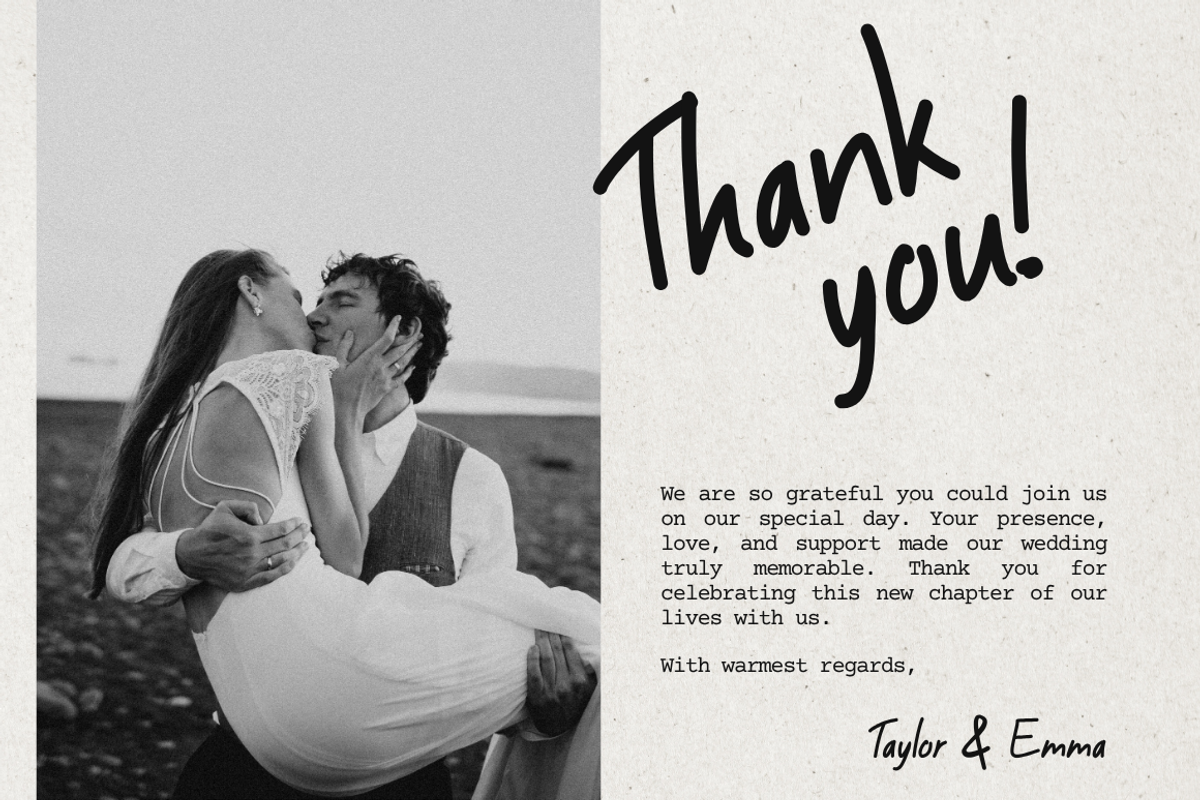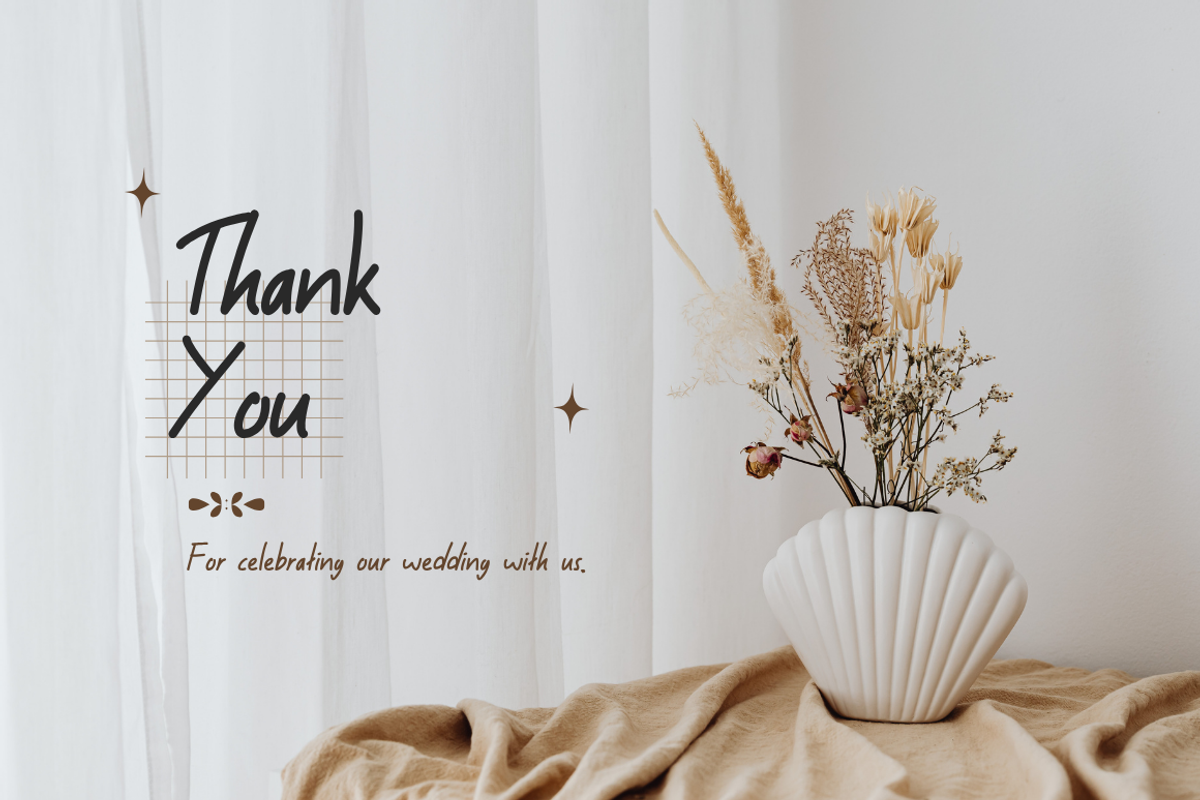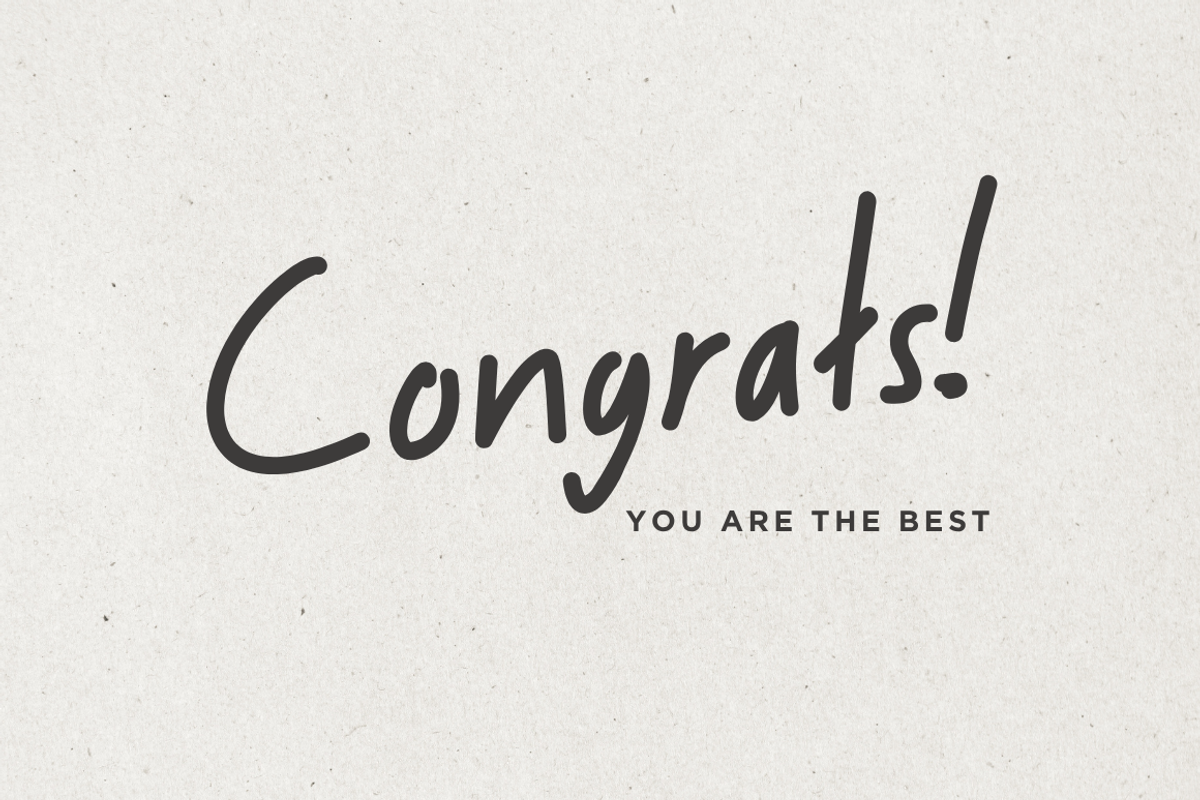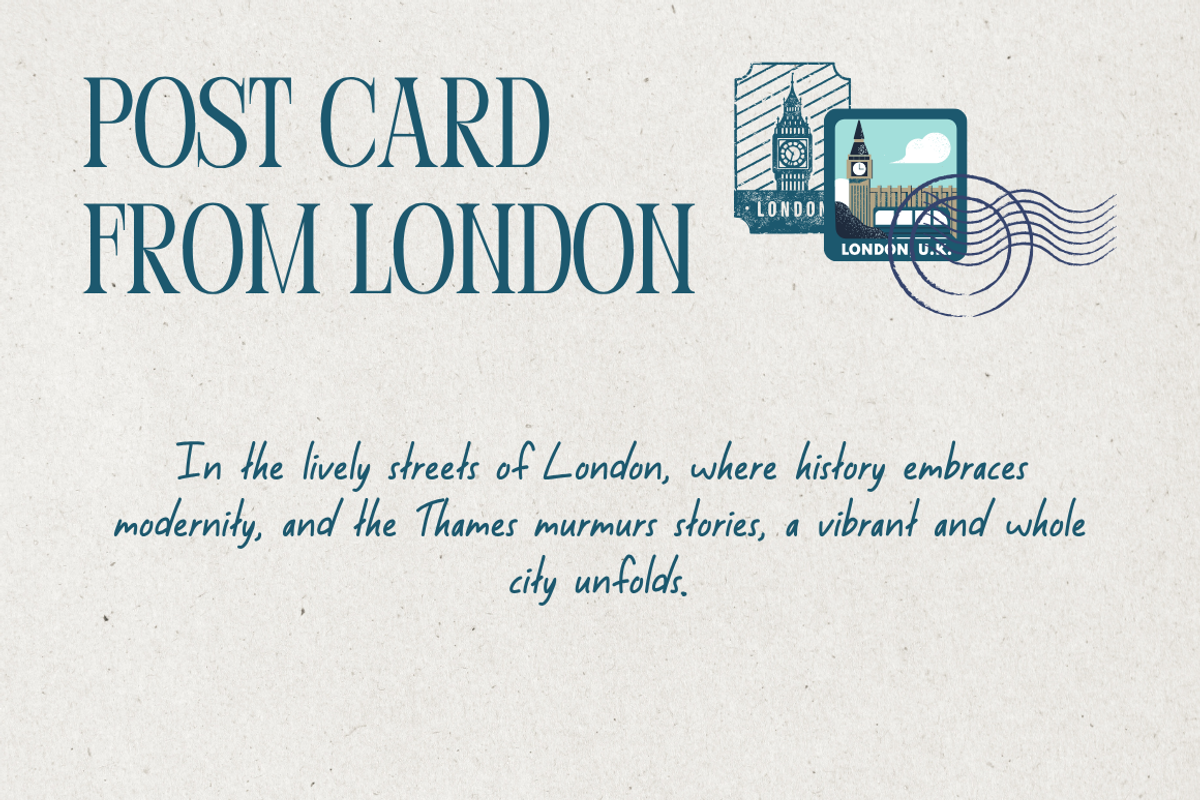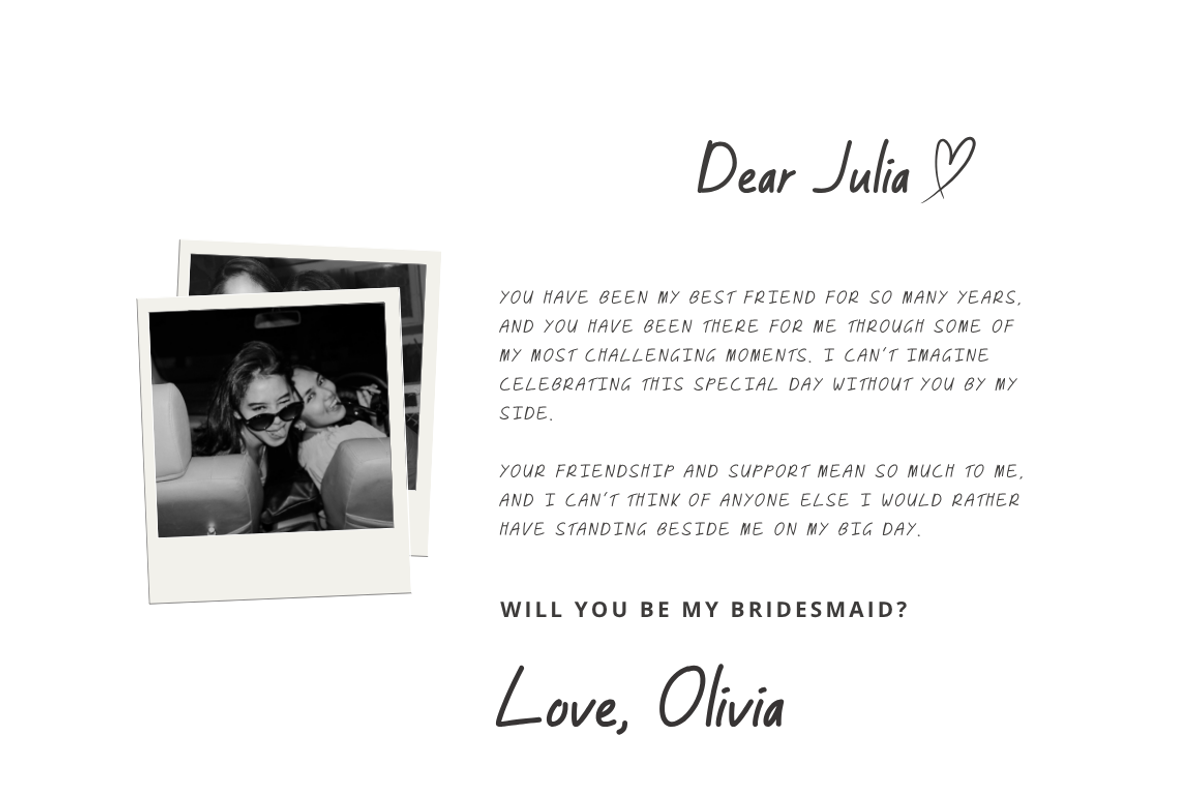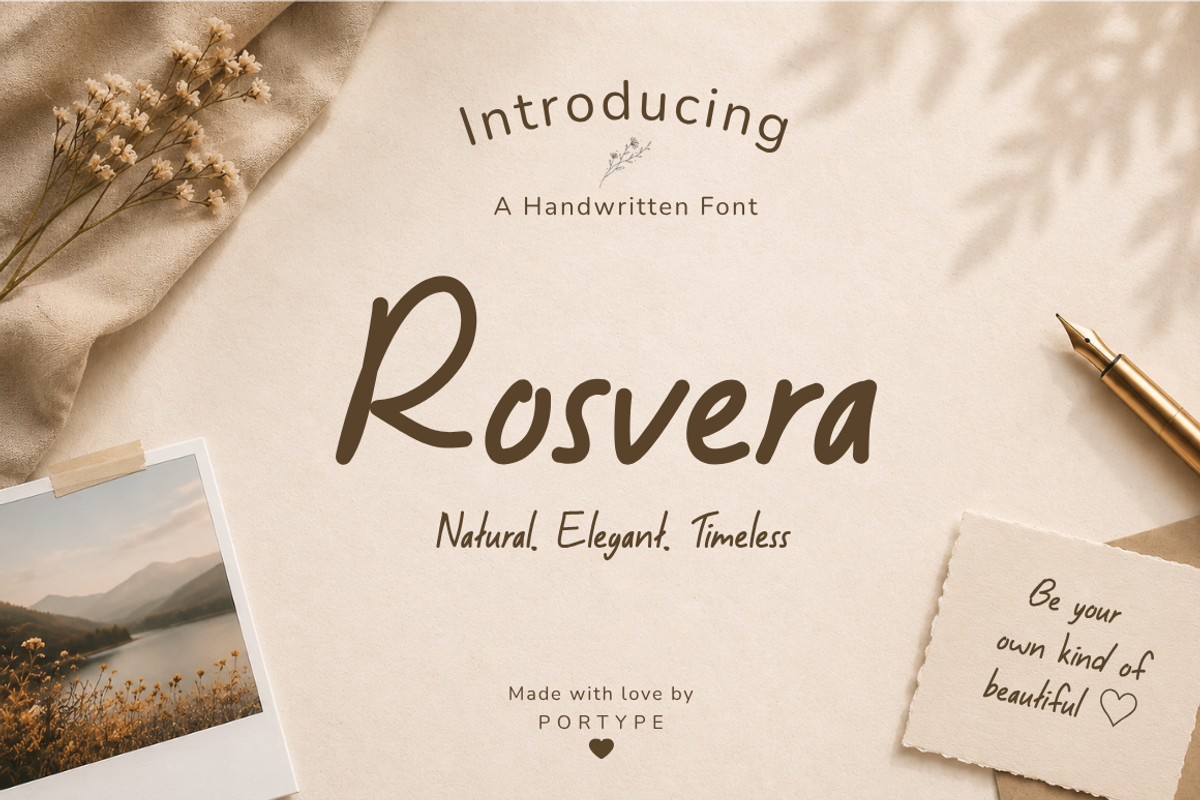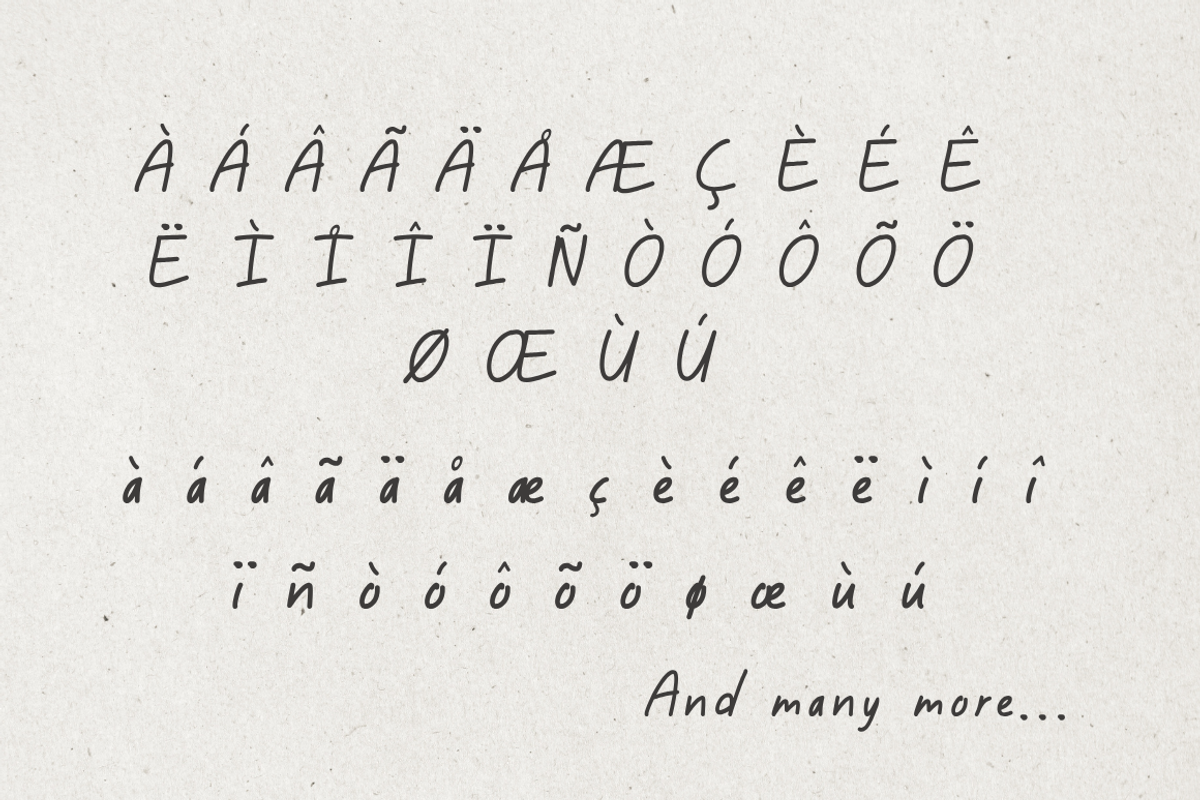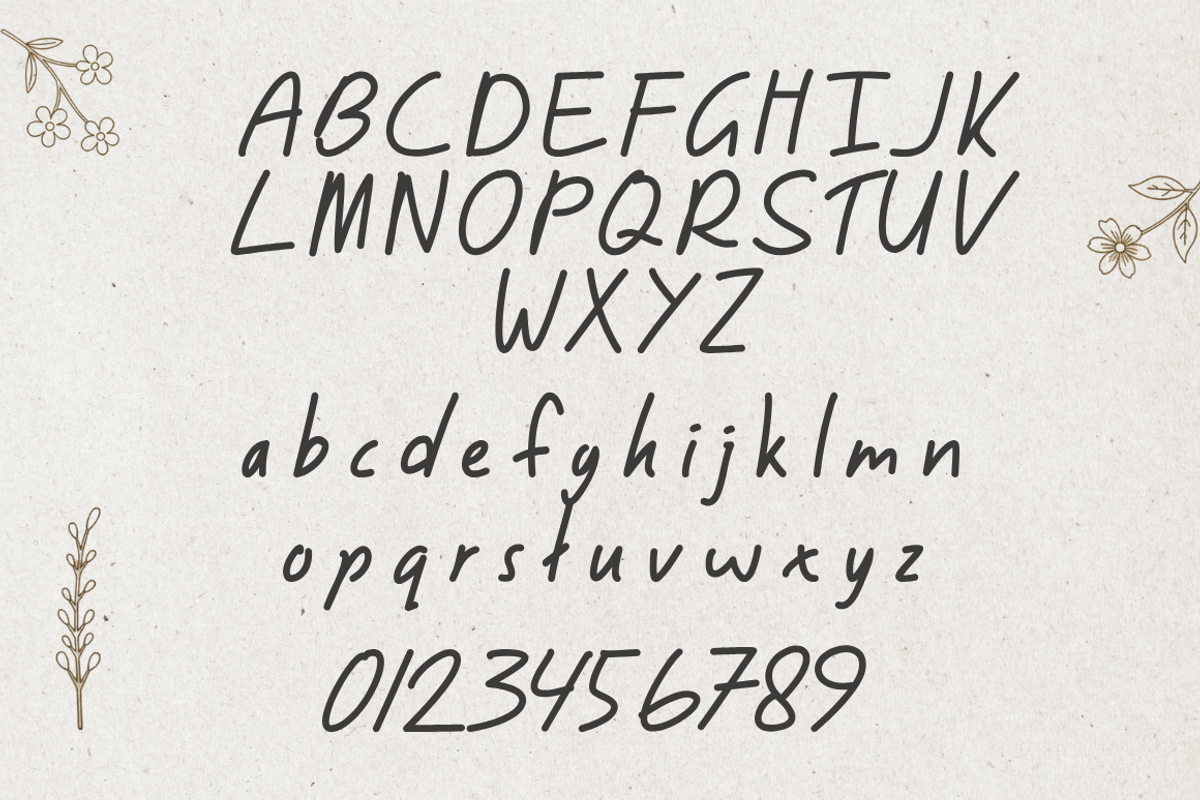
Rosvera - Handwritten Font
Rosvera is a modern handwritten font crafted to bring warmth, elegance, and authenticity to every design. Inspired by natural handwriting, it features smooth strokes, balanced letterforms, and a relaxed flow that creates a personal and timeless feel.
Whether you're designing wedding invitations, branding, social media graphics, logos, or product packaging, Rosvera adds a beautiful handwritten touch that feels both sophisticated and approachable.
Designed with versatility in mind, Rosvera works perfectly for feminine branding, lifestyle projects, stationery, quotes, greeting cards, photography, and premium packaging.
Natural Handwritten Style
Smooth & Elegant Letterforms
Standard Ligatures